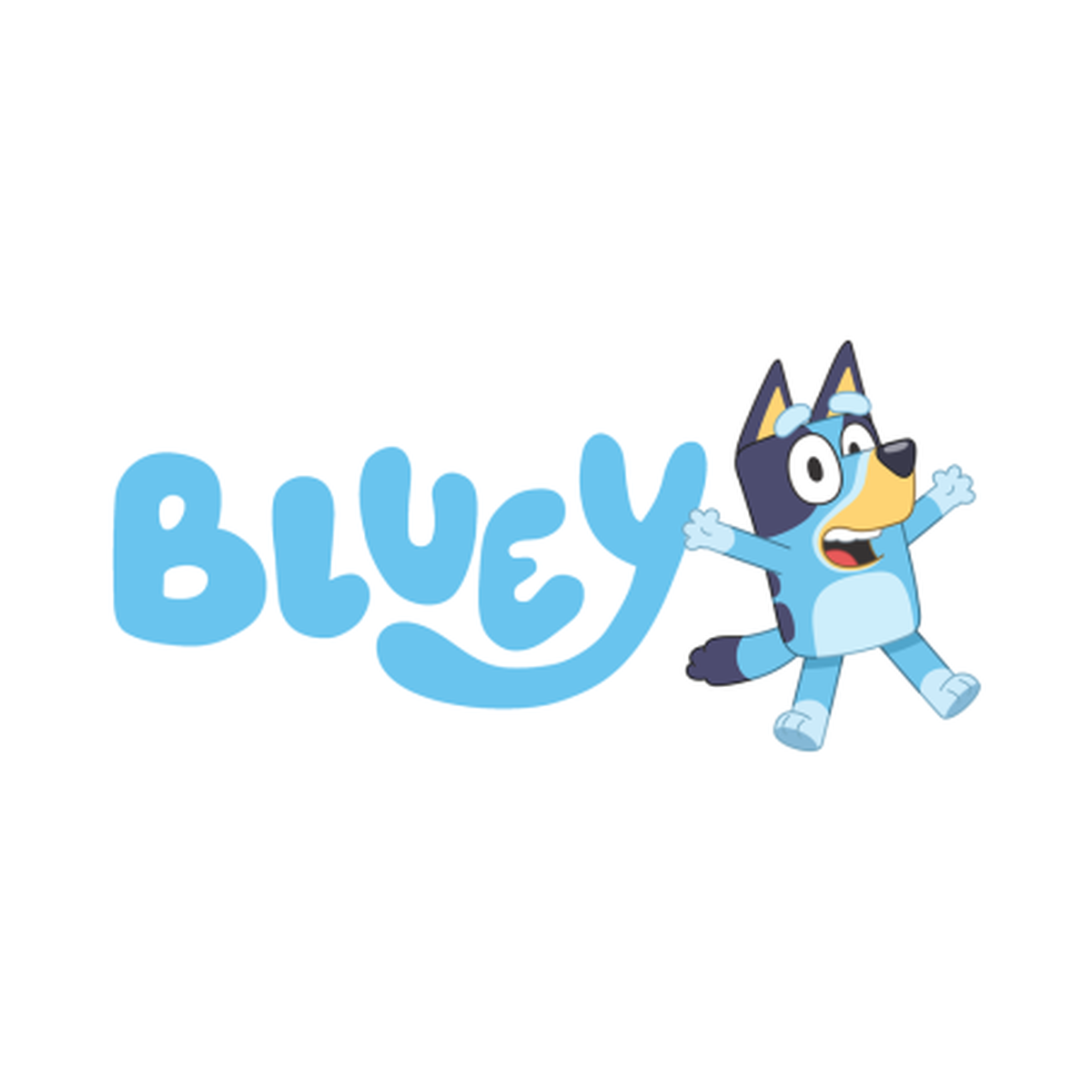
Bluey font preview
About Bluey
Bluey is an Australian animated series created by Joe Brumm, produced by Ludo Studio for ABC Kids and first broadcast in October 2018. Following a family of Blue Heeler dogs in Brisbane, its seven-minute episodes about imaginative play won a global audience and unusually strong critical affection for a preschool show, including an International Emmy.
The title treatment is a heavy rounded display face with fully softened terminals and a slightly bouncy rhythm — no sharp corners anywhere. It sits naturally alongside the show's flat, chalky colour palette and the loose hand-drawn quality of the animation. It manages to read as clearly for-children without becoming saccharine, which is roughly the same balance the writing strikes.
What font does Bluey use?
Bluey uses Bluey's logo is a custom rounded display lettering; the recreation most commonly circulated is based on Hello Headline. The defining traits are the fully rounded terminals, heavy weight and generous circular bowls.
Where this style works
Heavy rounded display faces are the default for anything aimed at children or families: animation titles, toy and game packaging, nursery and school branding, children's books, family-friendly app UI, and playful food packaging. The absence of sharp corners reads as safe and approachable — the reason the style dominates the category.
What fonts are similar to the Bluey logo?
Baloo, Fredoka One and Nunito Black are free options with the same rounded-terminal character. Quicksand Bold works for a lighter take on the same idea.
Bluey Font: Sorrel Poem